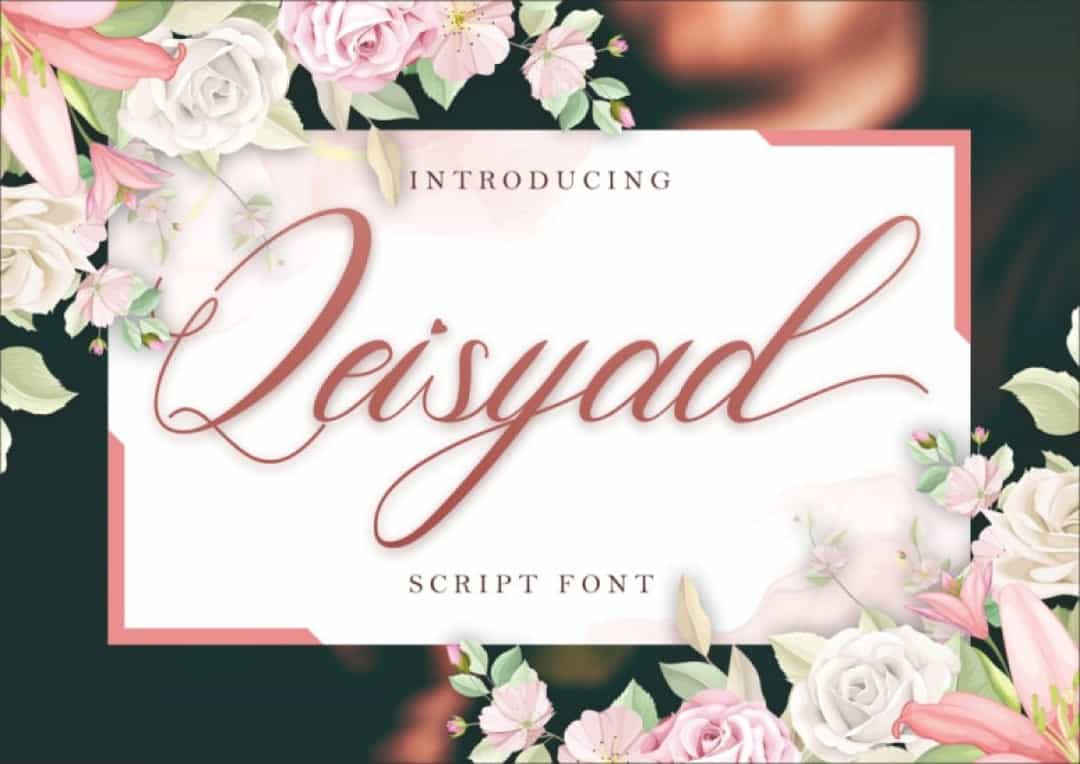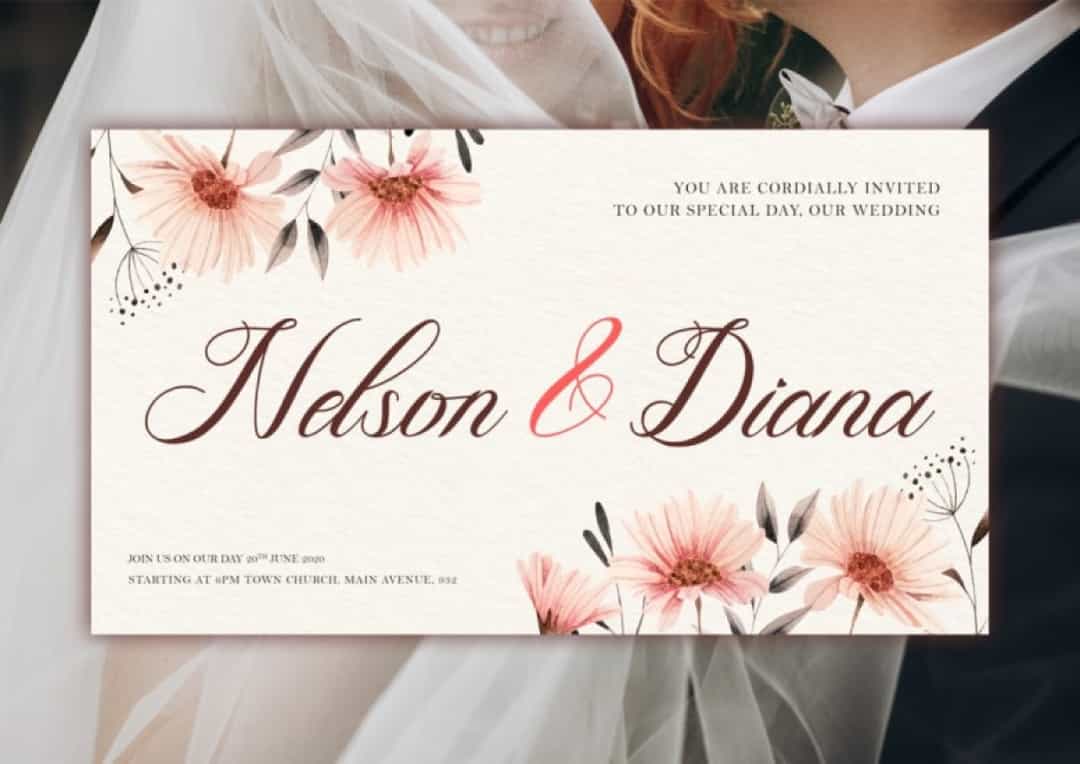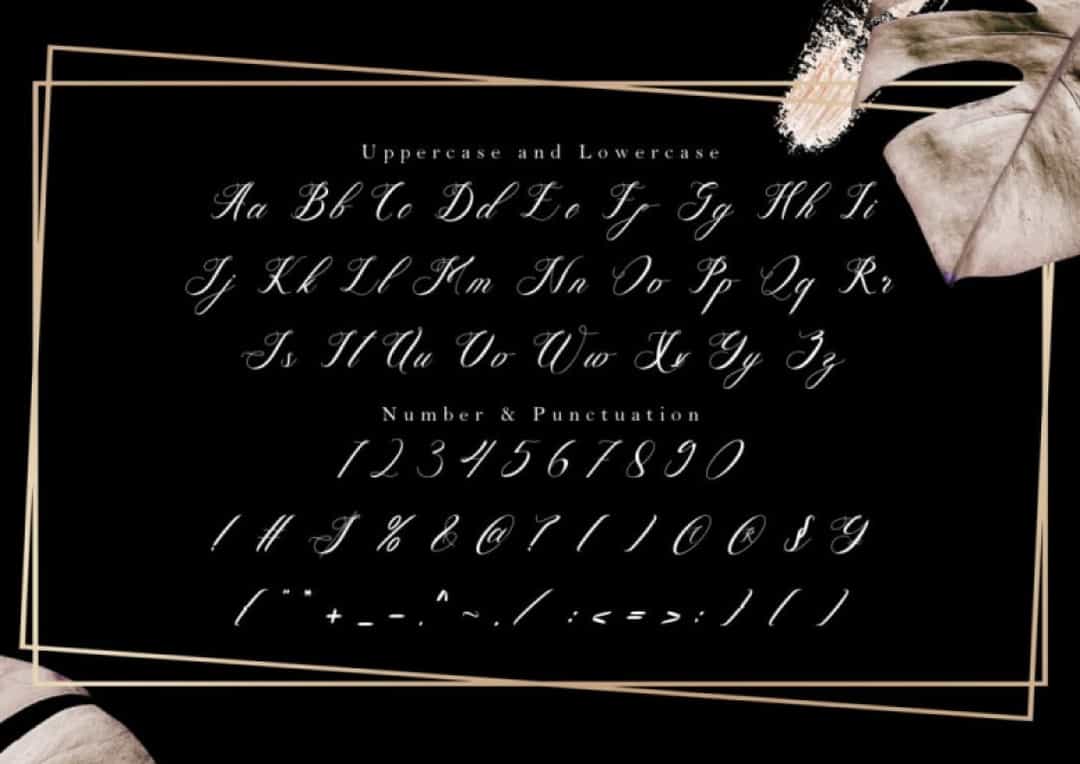
Discover Qeisyad Font, part of the Calligraphy collection—a versatile and unique font perfect for adding a personal touch to your projects. Download it for free and enjoy crafting designs with style, from invitations to social media posts. This font is available exclusively for personal use, giving you the freedom to create without limits. Unlock your creativity with Qeisyad Font today!
Qeisyad, an elegant script calligraphy font created with care, has quickly become one of the most beloved fonts available. This elegant font effortlessly merges classic calligraphic styles with modern and contemporary aesthetics for an exquisite result that will elevate your work to new levels of class and distinction. Prepare to be dazzled by its captivating appeal as Qeisyad elevates it.